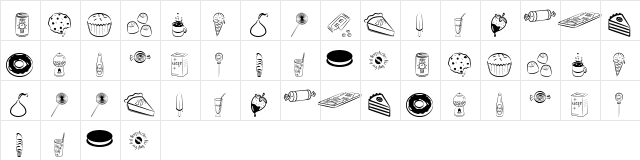
Sugar Coma Regular
Design Context for Sugar Coma Typeface
Sugar Coma is a composed and adaptable typeface that performs quietly and consistently across a wide range of design contexts.